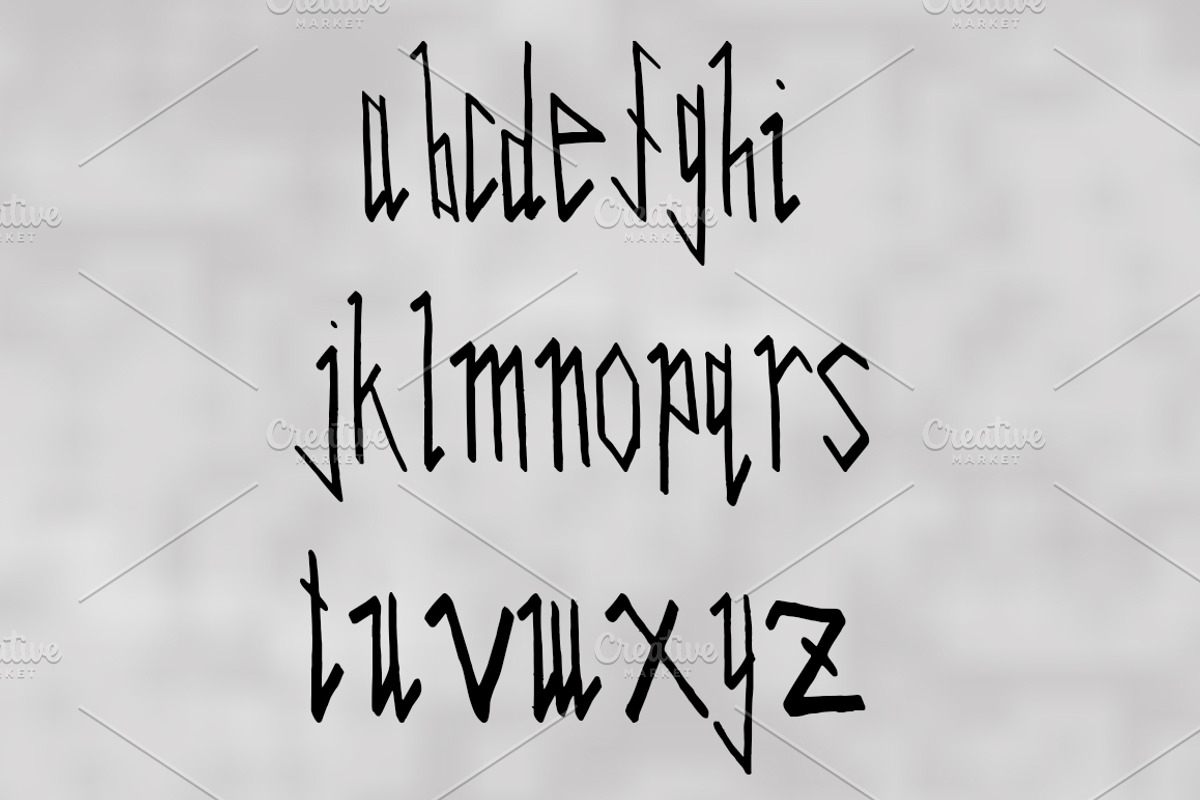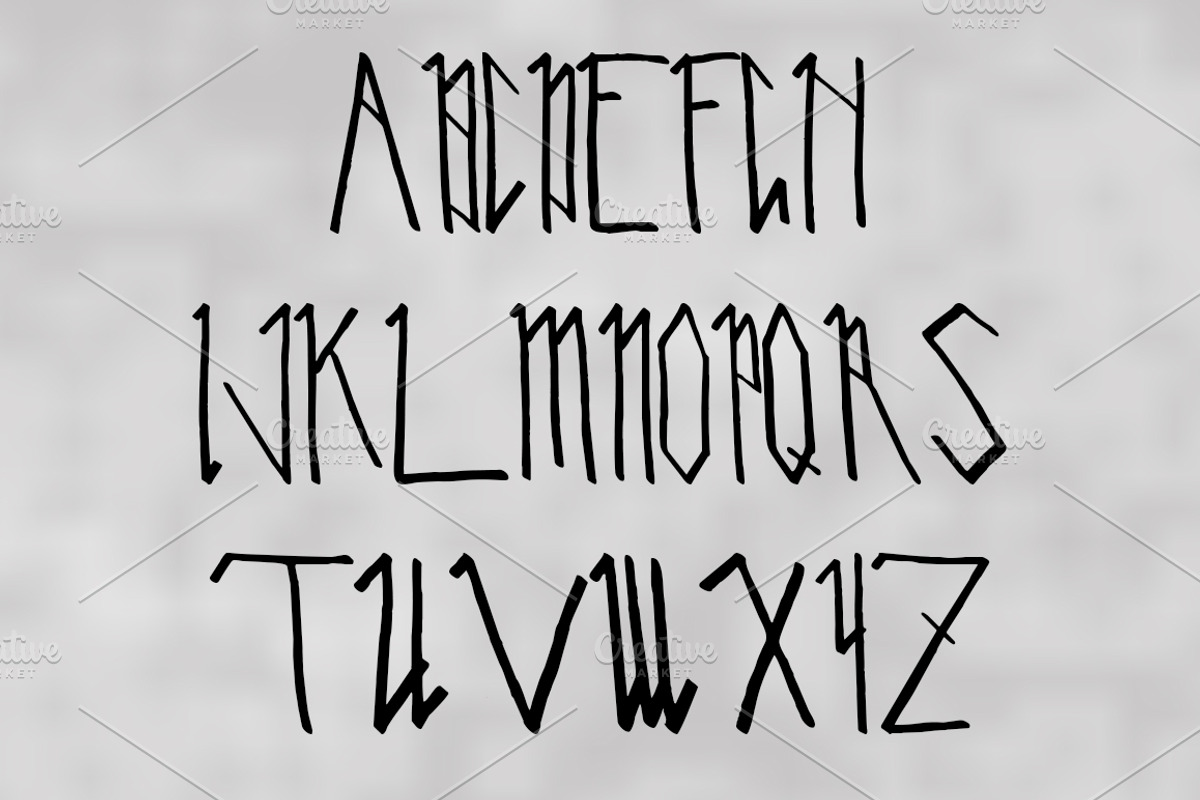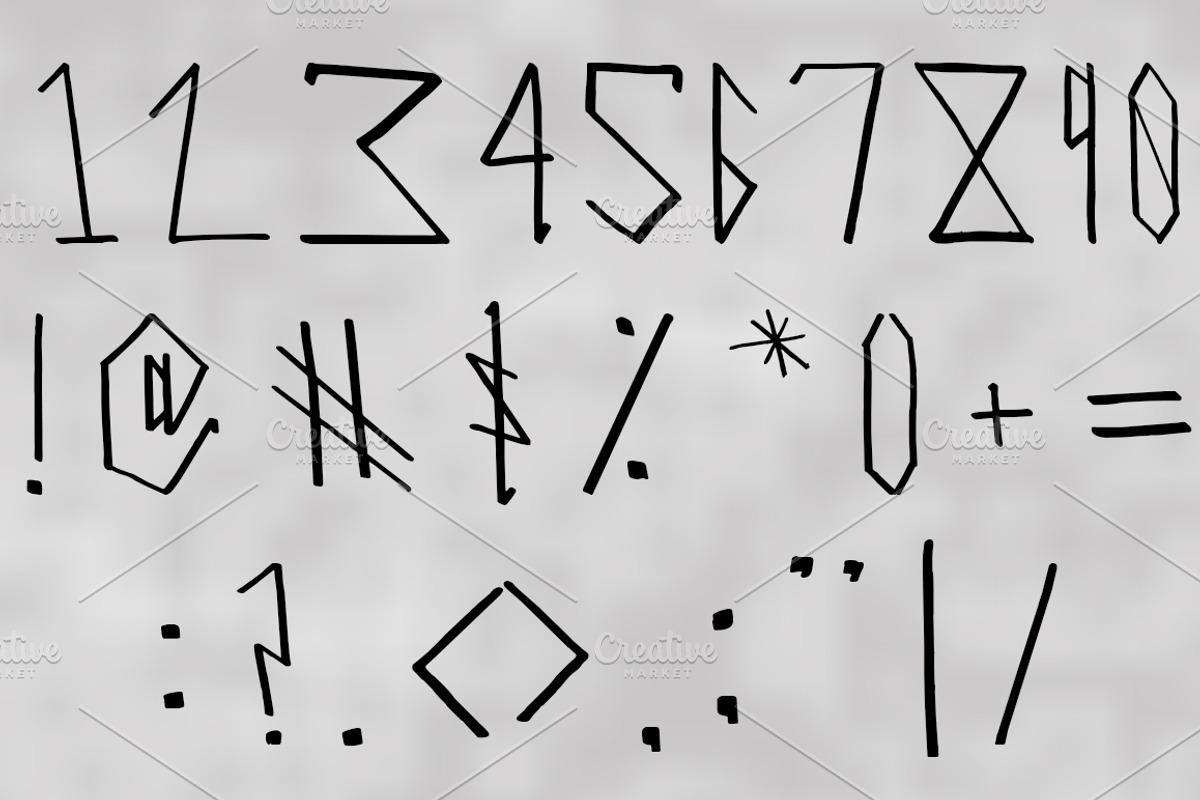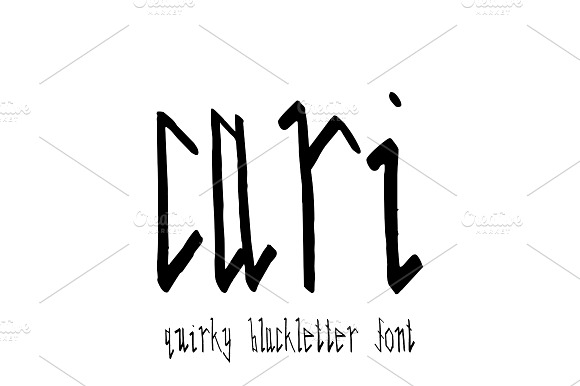
CARI Hand Written Blackletter Font
Cari is a funky font with a bit of personality! With a full alphabet, numbers, and symbols, Cari is a hand written quirky blackletter font.